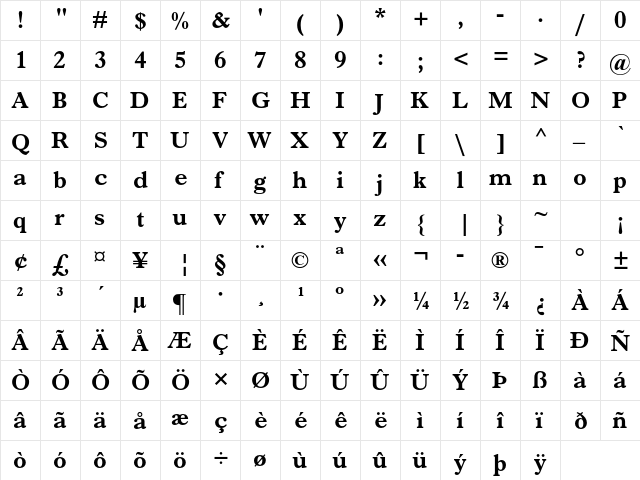
Imprint MT Std Bold
Design Context for Imprint MT Std Typeface
Imprint MT Std takes a measured approach to typography — its balanced proportions and neutral character make it a reliable workhorse for both digital and print work. Its bold stroke weight gives it real presence on the page.
Pro Tip: Use Imprint MT Std in both headline and body roles to test its range before committing to a single application.